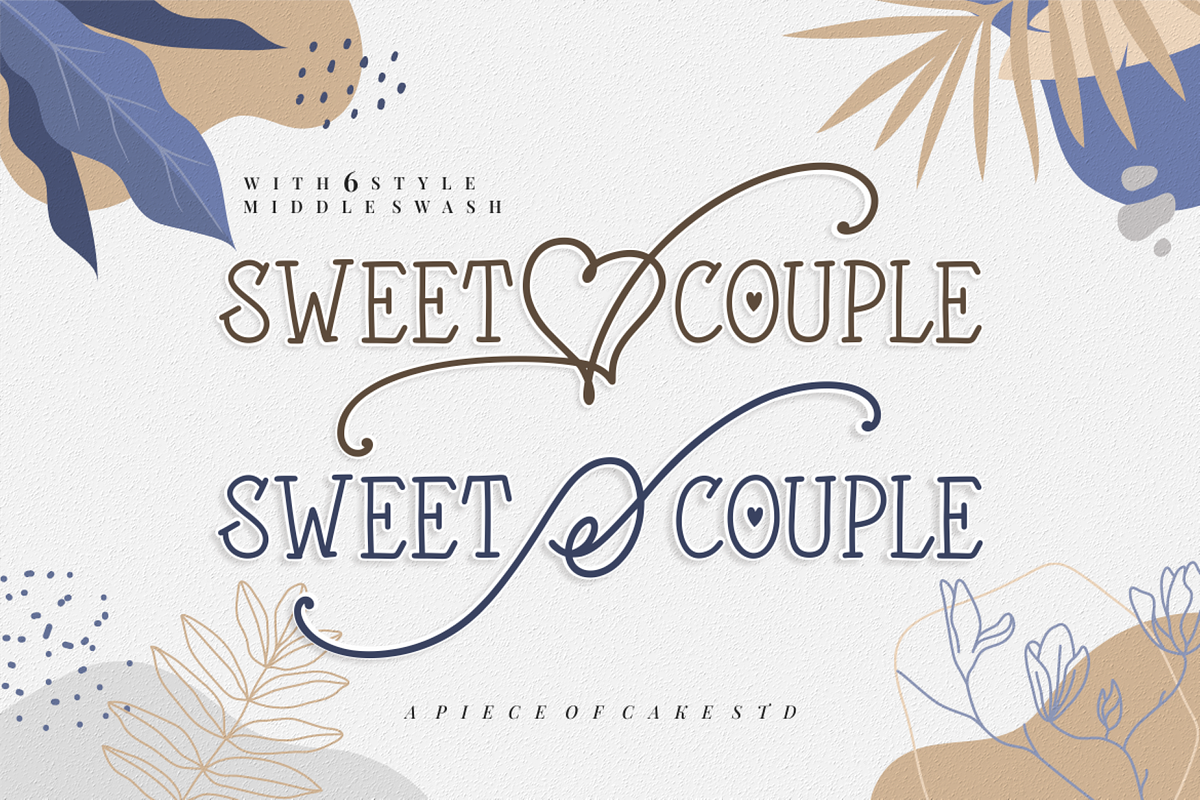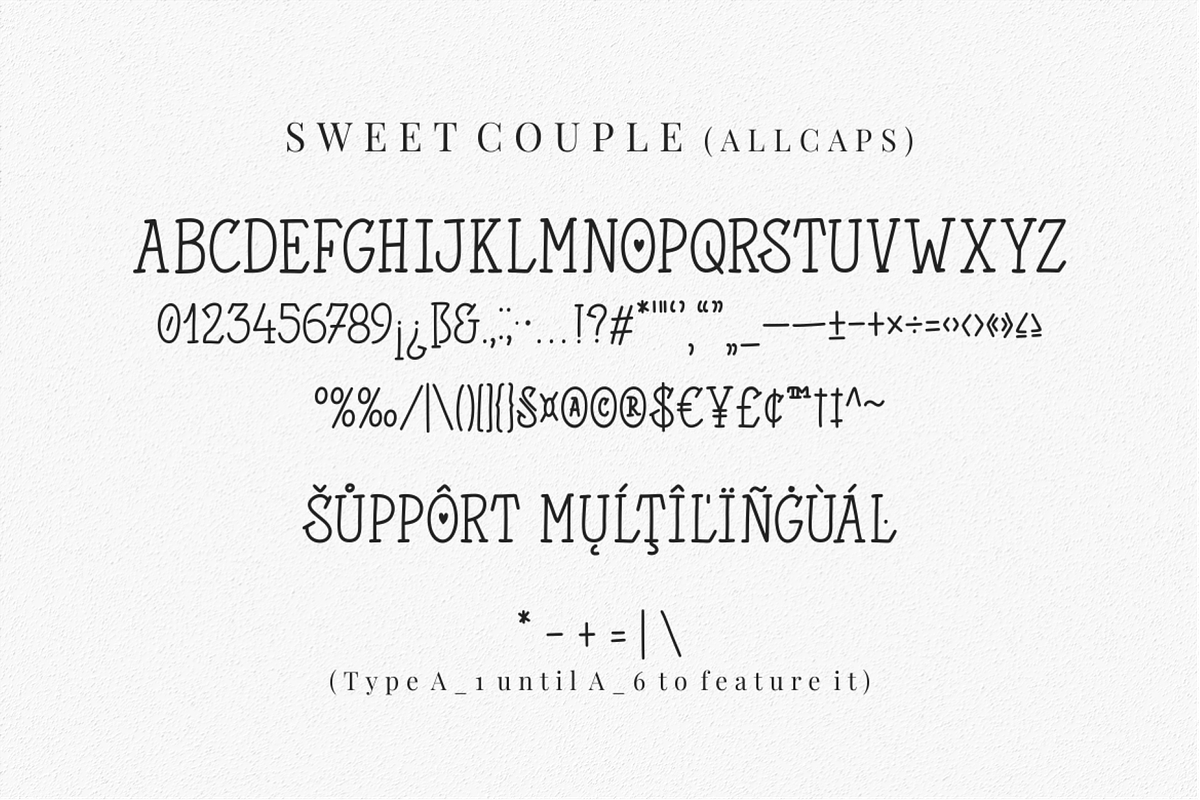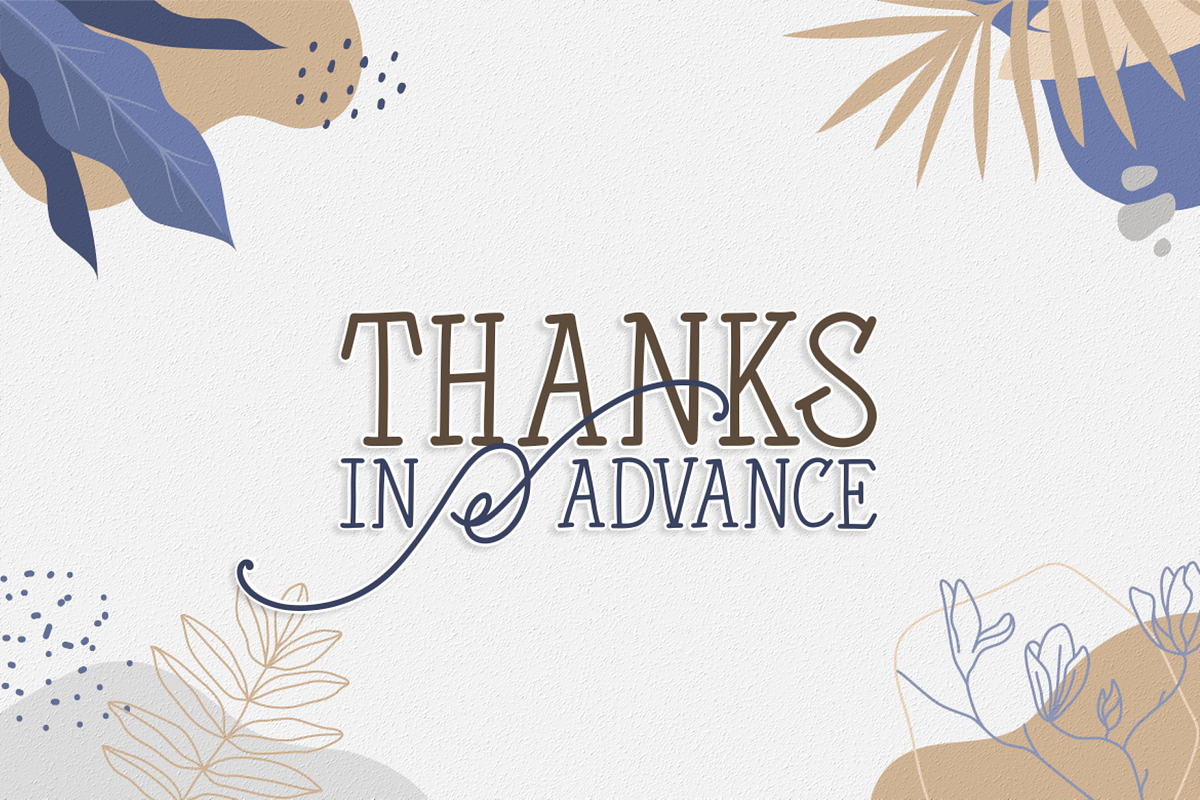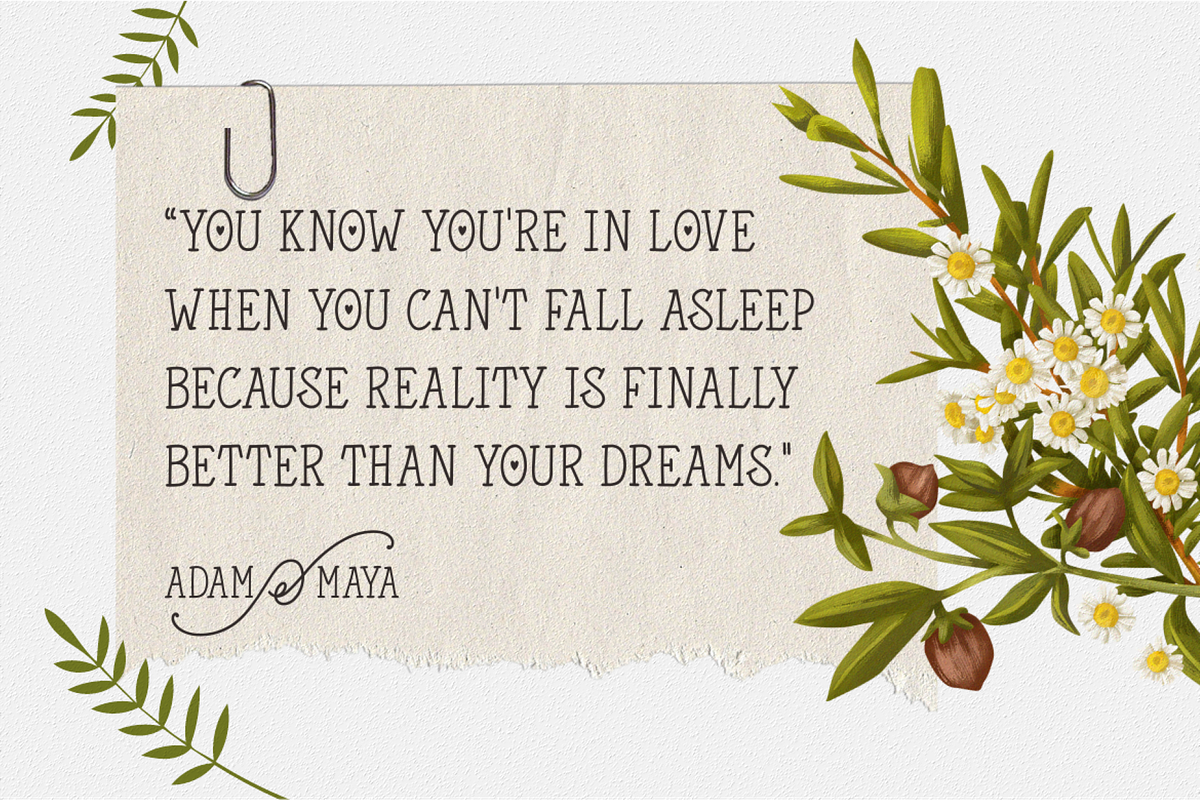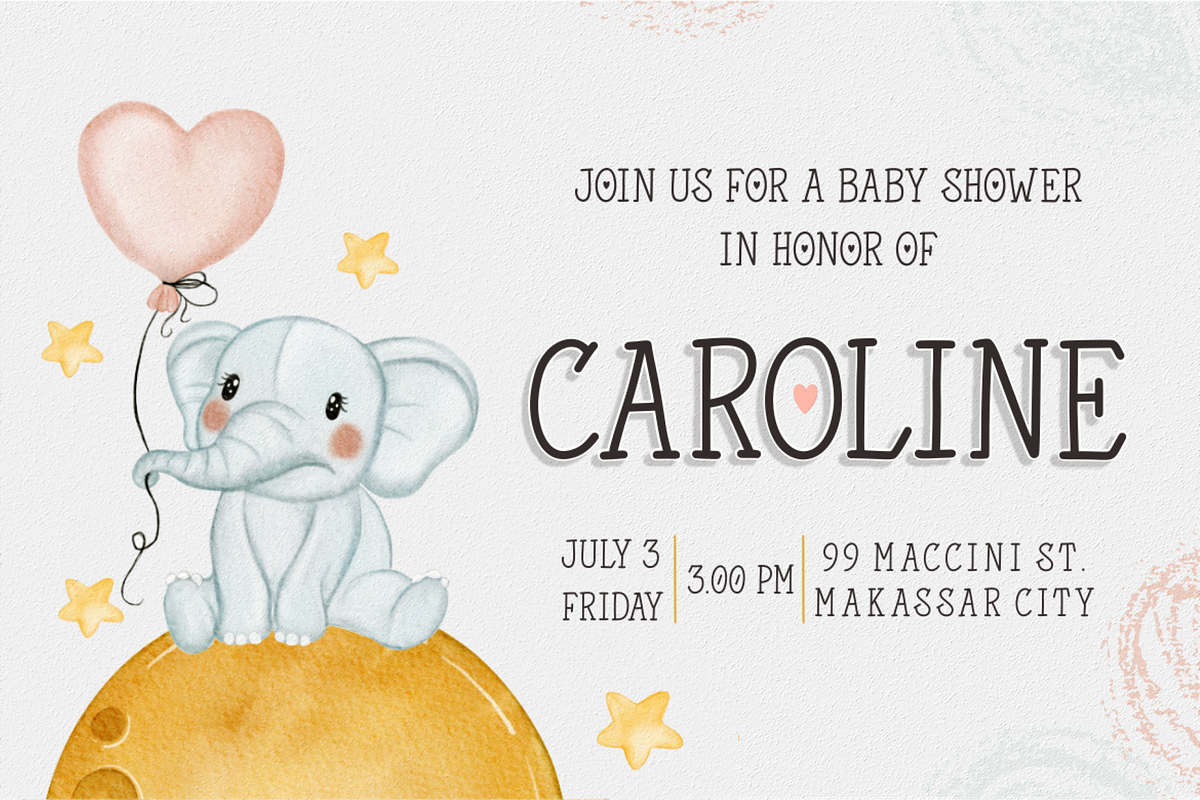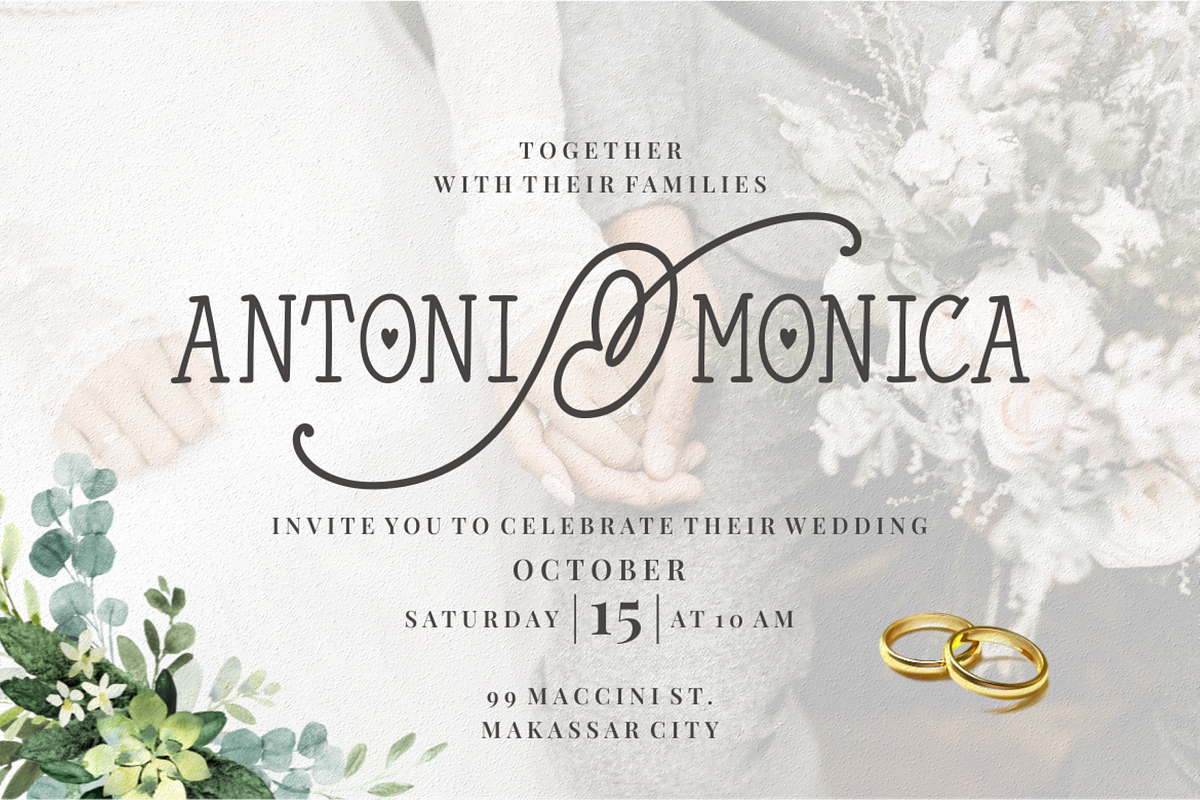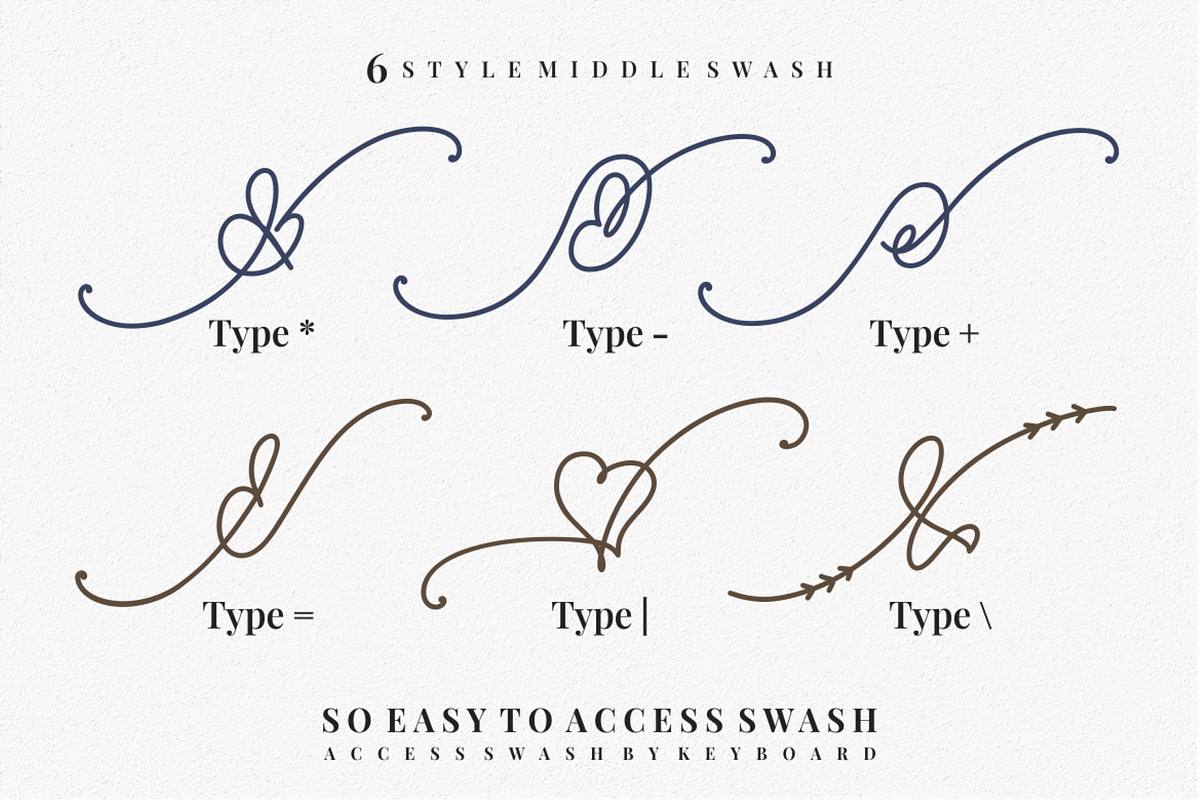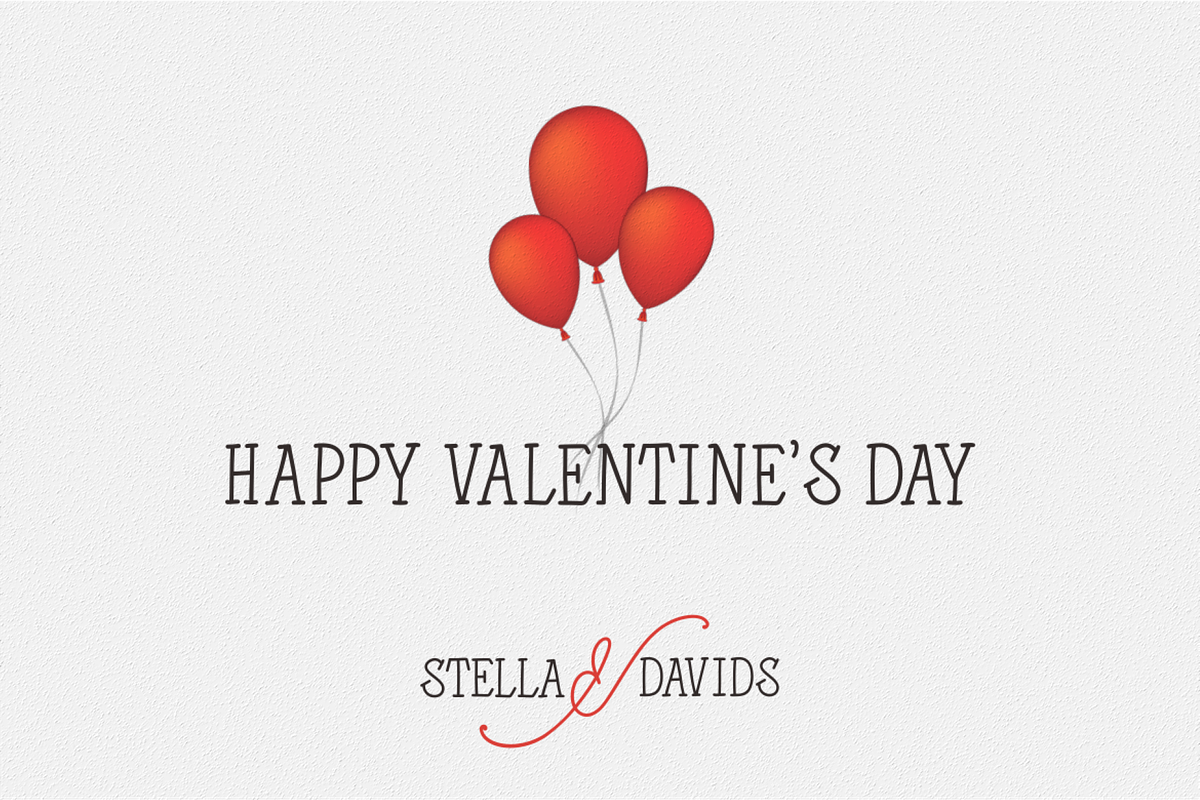
Sweet Couple - A Lovely Display Font
Introducing, Sweet Couple - a lovely display font, the perfect blend of style and love for your Valentine's themed designs. This charming font comes with six stylish heart middle swashes that can be easily accessed using the keyboard, adding a romantic touch to each character. Its modern and elegant design makes it ideal for expressing love on various occasions.
Whether it's a greeting cards, poster, or social media post, this font adds a simple yet elegant touch to your creations. Enhance your designs and spread love easily with Sweet Couple.
- A set of uppercase and lowercase glyphs
- Number, symbol, and punctuation
- Some swashes
So Easy to Use
Access Swashes by keyboard
- key asteriks ' * ' to feature middle swash 1
- key minus ' - ' to feature middle swash 2
- key plus ' + ' to feature middle swash 3
- key equal ' = ' to feature middle swash 4
- key bar ' | ' to feature middle swash 5
- key backslash ' ' to feature middle swash 6
For Example: type love+you